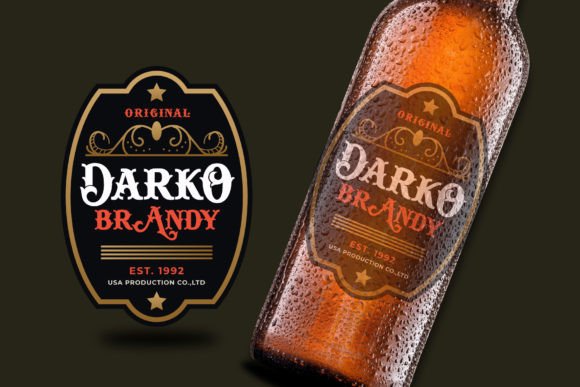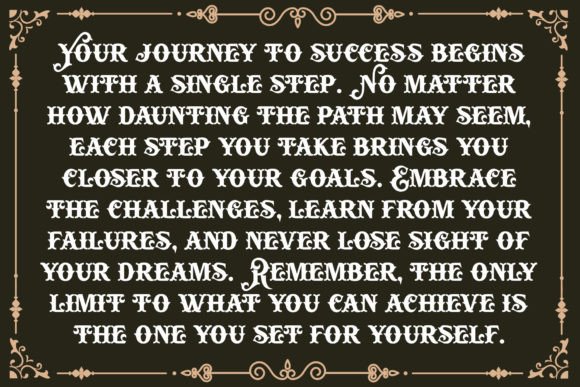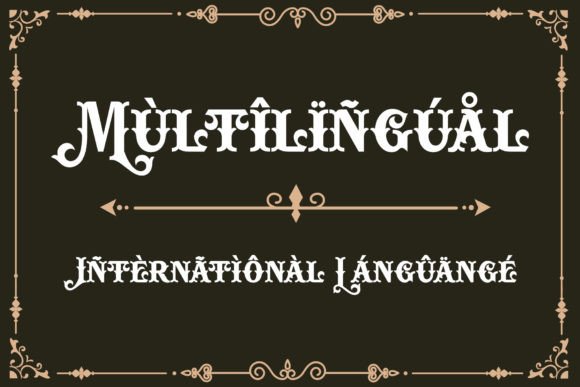
Introduction to Rantser Font
Make your designs look memorable, vintage, and classy with the Rantser Victorian typeface.
It’s an easy way to bring old memories into your documents, posters, logos, and more A perfect choice for a classical style.
Why Choose Rantser Font?
Rantser Font offers exceptional quality and versatility, making it a valuable addition to your design toolkit. Whether you’re creating for personal projects or commercial use, Rantser Font delivers professional results.